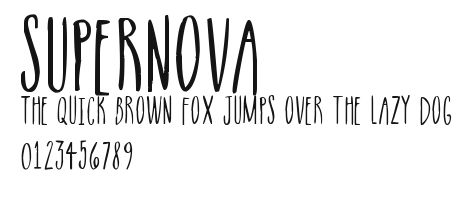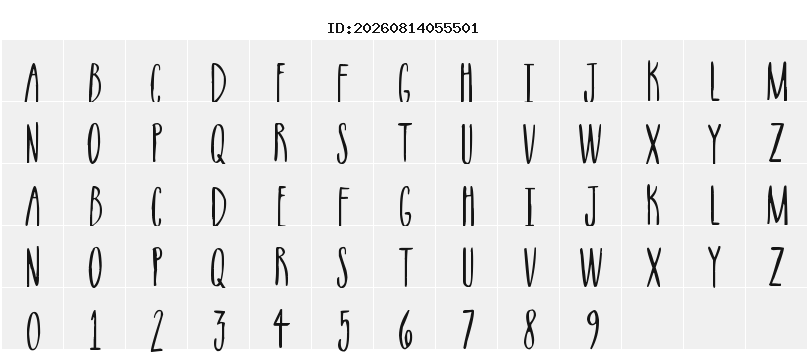
• Font Name: Supernova
• Full Font Name: Supernova
• Version: Version 1.00 February 18, 2014, initial release
• PostScript Name: Supernova
• Description: This font was created using Scanahand from High-Logic.com
About Supernova.ttf
Supernova.ttf is a modern, elegant sans-serif font designed for ultimate readability and visual harmony. Perfect for branding, headlines, web design, and print materials.